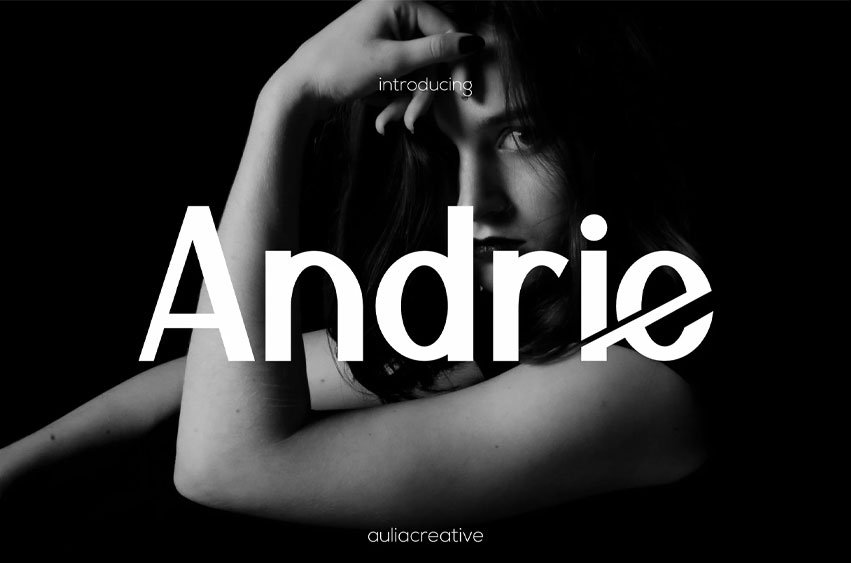
Andrie Font
Andrie Font Sans Serif DIsplay Logo Font is and awesome and authentic display font.
Crafted with high attention to detail, it gives you the best design experience.